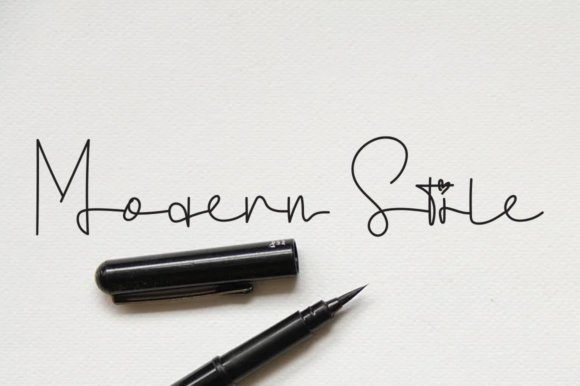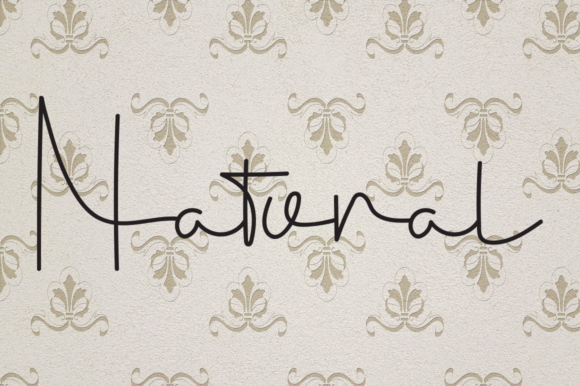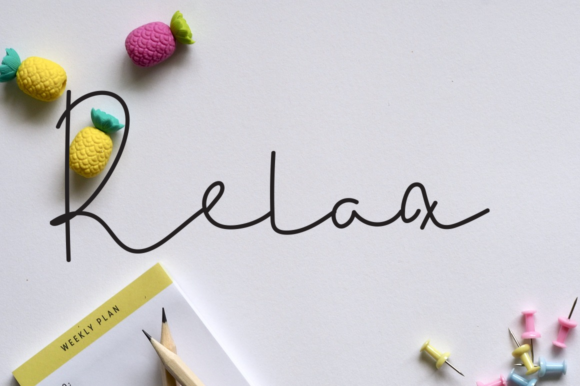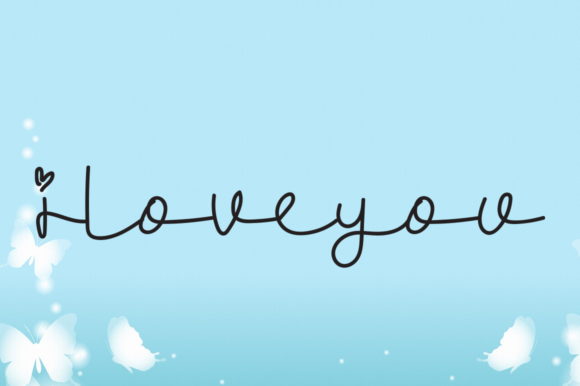
Always Together Font
About Always Together Font
Always Together is a dainty, thin and stylish handwritten font. This gentle font will look gorgeous on a variety of design ideas. It will add a joyful and romantic touch to each of your projects!